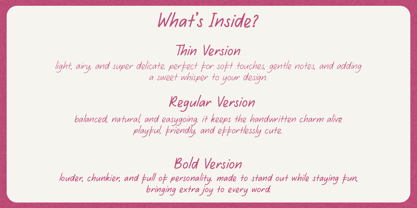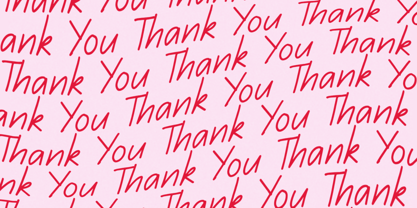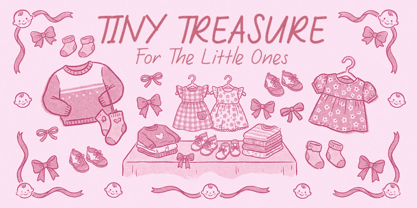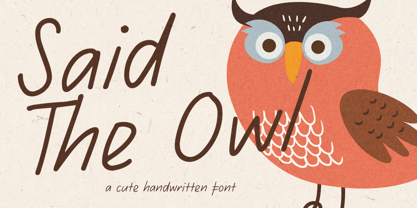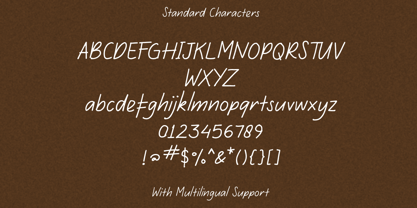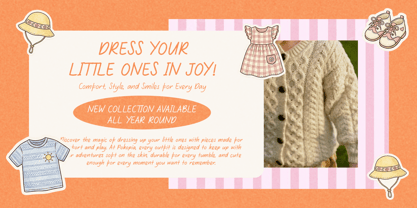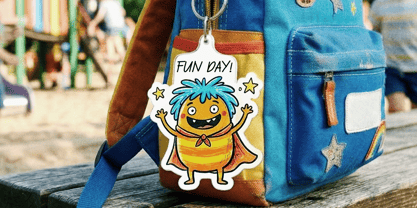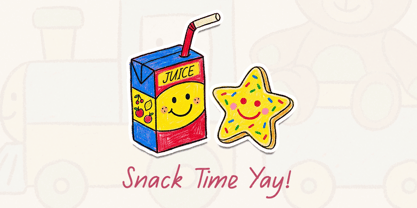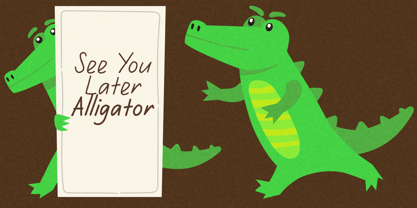
Said The Owl
The Said The Owl Font Family was designed by Aryo Pamungkas and published by Littlehand. Said The Owl contains 3 styles and family package options. More about this family
Said The Owl is a sweet and easygoing handwritten font that feels like a cozy little note scribbled on a quiet afternoon. With its soft, slightly bouncy strokes and natural flow, this font brings a warm, friendly charm that looks effortlessly cute without trying too hard. Features : Uppercase & lowercase Numbers and punctuation Multilingual Support PUA encoded